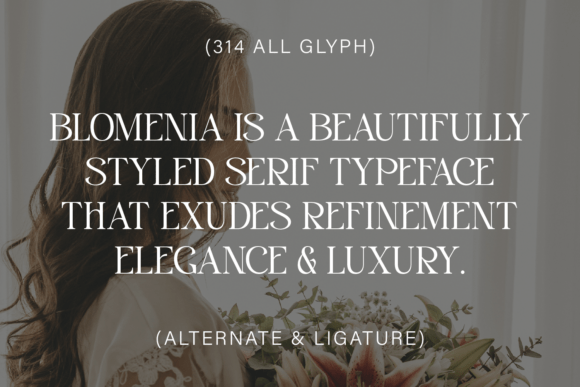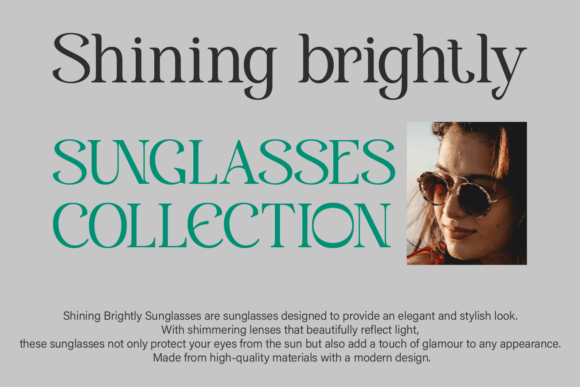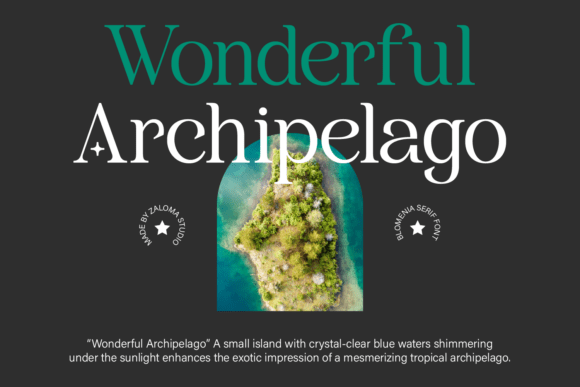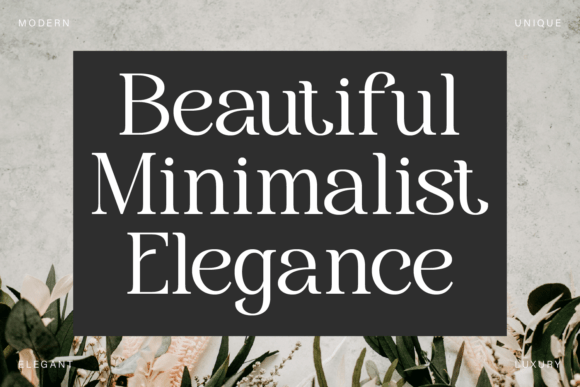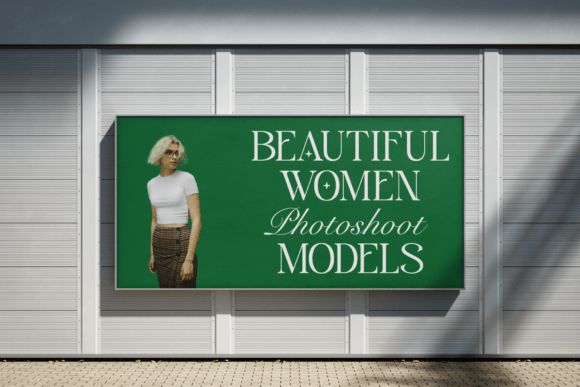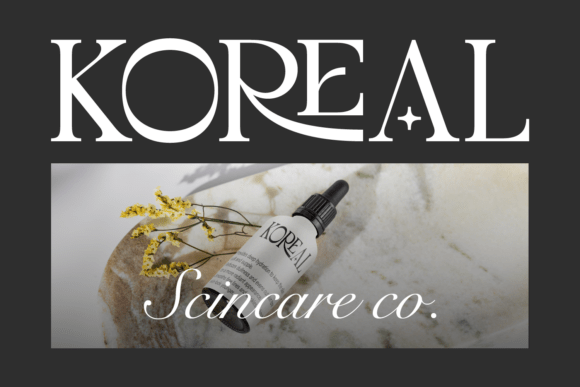
Introducing Blomenia Font: The Epitome of Modern Serif Elegance
In the realm of typography, few fonts manage to strike a balance between classic sophistication and modern flair. Blomenia Font is one such exceptional typeface that seamlessly merges traditional serif elegance with a contemporary twist. Designed to cater to the needs of designers, crafters, and creative professionals, Blomenia offers a rich design experience, replete with ligatures and alternates, making it an ideal choice for a multitude of creative projects.
The Design Philosophy of Blomenia
Blomenia’s design philosophy revolves around creating a font that exudes luxury and exclusivity. Each letterform is meticulously crafted with elegant proportions, ensuring a perfect balance between aesthetic appeal and readability. The font features bold yet soft letterforms, with distinctive details that set it apart from more conventional serif fonts. This unique blend of characteristics makes Blomenia perfect for projects that demand a touch of sophistication and elegance.
Key Features of Blomenia Font
- Modern Serif Design: Blomenia boasts a modern serif design that brings a fresh perspective to traditional typography. Its clean lines and subtle serifs make it versatile for various applications.
- Rich in Ligatures and Alternates: One of the standout features of Blomenia is its extensive collection of ligatures and alternates. This feature allows designers to add a personal touch to their typography, making each project unique.
- High Flexibility: Blomenia’s design ensures high flexibility, making it suitable for a wide range of creative projects, from branding and logos to product packaging and wedding invitations.
- Luxurious and Exclusive Impression: The font’s distinctive details and elegant proportions create a luxurious and exclusive impression, ideal for projects that require a sophisticated aesthetic.
Applications of Blomenia Font
Blomenia’s versatility makes it an excellent choice for various creative projects. Here are some of the ideal applications for this beautiful font:
- Branding and Logos: Create a lasting impression with Blomenia’s elegant and modern serif design, perfect for crafting memorable brand identities.
- Product Packaging: Elevate your product packaging with Blomenia’s luxurious and exclusive aesthetic, ensuring your products stand out on the shelves.
- Wedding Invitations: Add a touch of sophistication and elegance to your wedding invitations, making them truly special and memorable.
- Typography Design: With its high flexibility and extensive ligatures and alternates, Blomenia is ideal for various typography design projects, allowing designers to experiment and create unique artworks.
Why Choose Blomenia Font?
In a world where typography plays a crucial role in defining a brand’s or project’s visual identity, choosing the right font is paramount. Blomenia Font stands out for several reasons:
- Unique Design: Blomenia’s modern serif design, rich in ligatures and alternates, offers a unique solution for designers looking for a distinctive typography style.
- Versatility: Its high flexibility makes Blomenia suitable for a wide range of applications, from digital projects to print materials.
- Elegance and Readability: The font strikes a perfect balance between elegance and readability, ensuring that your projects are both visually appealing and easy to read.
| Author | Zaloma Studio |
Blomenia Font is a remarkable addition to the world of typography, offering a modern serif design that combines classic elegance with a contemporary touch. Its rich features, including ligatures and alternates, make it a versatile and valuable asset for designers and crafters. Whether you’re working on branding, product packaging, wedding invitations, or any other creative project, Blomenia is sure to elevate your design to new heights of sophistication and elegance.
Discover the creative possibilities with Blomenia Font and experience the difference it can make in your projects. With its luxurious aesthetic, high flexibility, and unique design, Blomenia is poised to become a favorite among designers and typography enthusiasts alike.